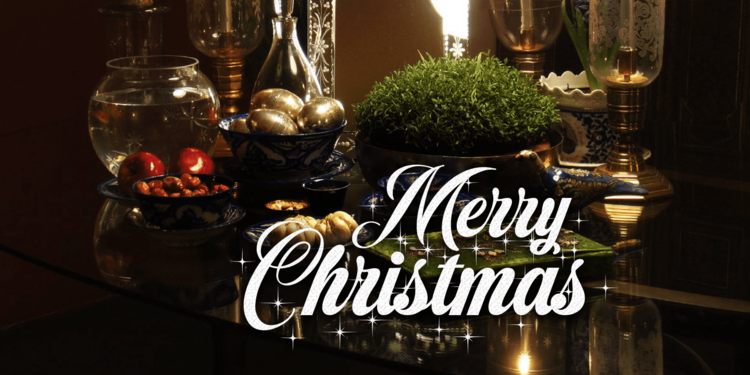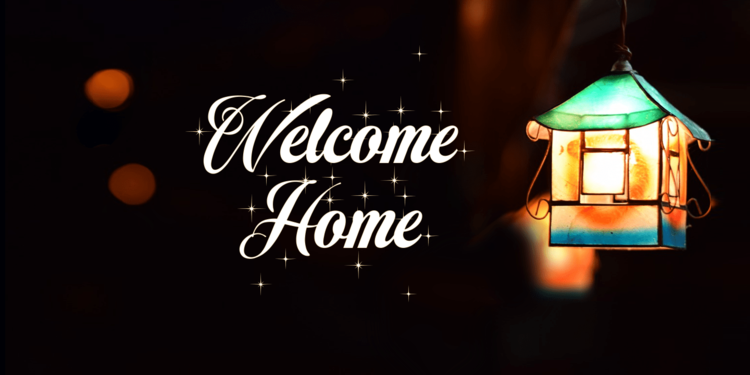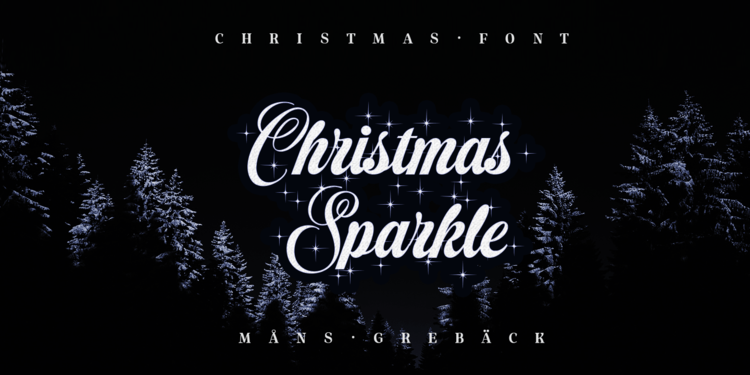
The name of the font is Christmas Sparkle Font and as the name suggests, it surely brings Christmas sparkles to all the projects in which it is used. Christmas Sparkle Font can be used for various projects like in school or for other activities but Christmas Sparkle Font is mainly used for making Christmas cards, Christmas banners or for Christmas themed invitation cards. Christmas Sparkle Font is a decorative type of font. Christmas Sparkle Font is created by Måns Grebäck. The demo version of Christmas Sparkle Font is free for personal use. For commercial use, Christmas Sparkle Font can be purchased.
Font: Christmas Sparkle Font
Author: Måns Grebäck
Classification: Decorative